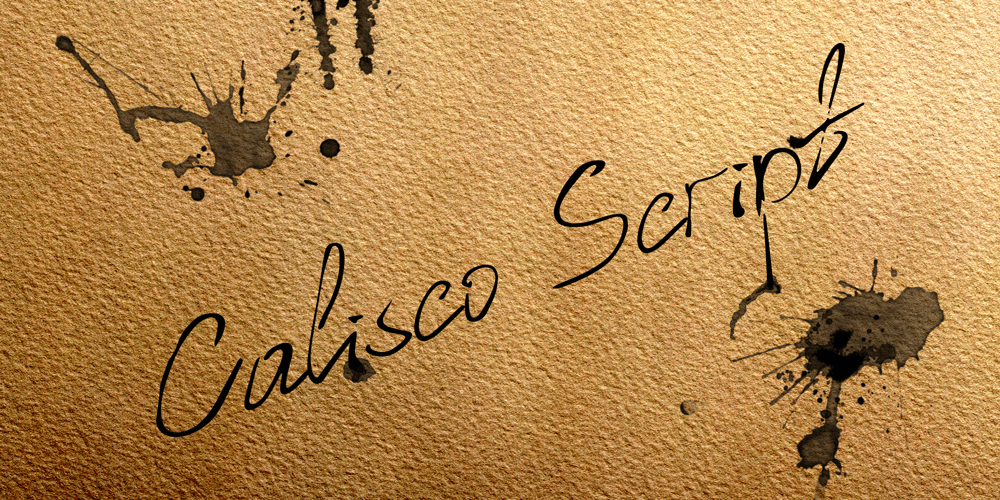
Calisco Script
Calisco Script font
Calisco Script Font Family was designed by Peter Ivanov and published by Ivangard Studios. Calisco Script contains 3 styles and family package options. Calisco Script is a hand letter style font. The idea behind the creation of this font family was to simulate actual handwriting, with all of it’s little quirks and imperfections.Calisco Script differentiates itself by it’s highly variable stroke weights and naturally slanted glyphs. A single stroke line of any given letter, could be rather thin on one end, and thick on another for example. Furthermore, in the case of some characters, stroke lines can be broken apart by small gaps, giving the feeling of being drawn with a very light touch. All of these quirks can help achieve a unique feel to a hand drawn design. To get a good idea of these specific characteristics of the font, please use the preview field to type out different letters/words/sentences.Comes in 3 different weights – Regular, Semibold and Bold. Regular attempts to achieve a more pen or pencil style look, while the Semibold and Bold variants can give a more brush or marker feel.Calisco Script supports latin and cyrillic based languages.This font relies heavily on ligatures, in some cases to help better connect letters, and in others to give a more unique feel. As such, it is highly recommended to use this font with a software that supports ligatures. Most modern software has this functionality, but if you are unsure whether the platform/program you intend to use this font with, has this support, I would suggest running a quick search on the internet for this. For example, you could search “Does (name of software/platform) support ligatures in fonts”.I hope you like and appreciate this font, and I hope it helps you personalize your projects and designs.